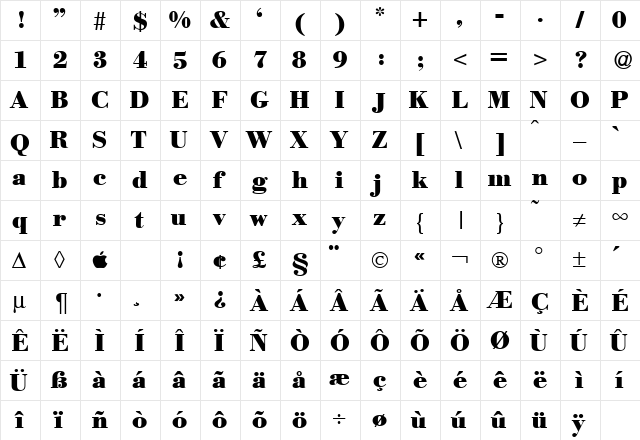
ModernBodoniHeavy Regular
Design Context for ModernBodoniHeavy Typeface
ModernBodoniHeavy is a composed and adaptable typeface that performs quietly and consistently across a wide range of design contexts.